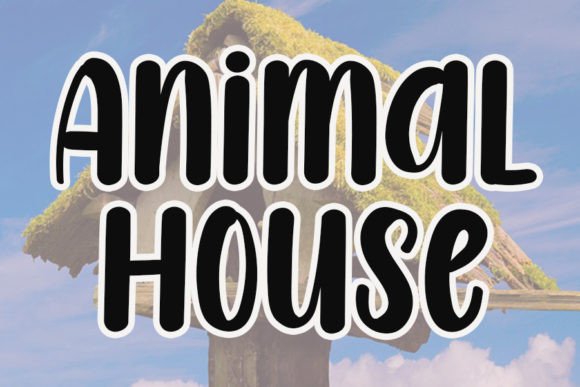
The Ultimate Guide to Animal House Font: Elevate Your Designs with this Modern Handwritten Style
Have you ever been in the middle of a design project, and suddenly, you’re stuck on finding the perfect font? I recall a particularly frustrating experience while working on a branding project for a trendy boutique hotel. My client wanted a font that exuded a sense of modern sophistication while still being approachable and friendly. After scouring through countless font libraries, I stumbled upon the Animal House font. It was love at first sight! ✨ In this article, we’ll dive into the world of Animal House font, exploring its features, uses, and some helpful tips for incorporating it into your designs.
An Honest Review of Animal House Font
What I Love About Animal House Font
• ✨ Balanced and varied: Animal House font strikes the perfect balance between being not too thin and not too thick. This makes it incredibly versatile for various design projects.
• ✅ Modern vibe with a classic touch: Inspired by classic calligraphy, this font brings a fresh and modern feel to your designs while maintaining an air of sophistication.
• 🌈 Spotless form: The clean lines and curves of Animal House font make it a joy to work with, ensuring your designs look polished and professional.
While Animal House font is an excellent choice for many projects, there are a few minor considerations to keep in mind:
• 🤔 Limited availability of weights: If you’re looking for a font with a wide range of weights, you might find Animal House font somewhat limited. However, its existing weights are highly versatile.
• ⚠️ Not ideal for very small text: Due to its design, Animal House font might not be the best choice for very small text sizes, as some details may get lost.
The Backstory of Animal House Font
Animal House font was designed with the intention of creating a modern, handwritten font that captures the essence of classic calligraphy. The designer aimed to produce a font that was not only beautiful but also highly versatile, suitable for a wide range of design projects. Through meticulous attention to detail and a passion for typography, Animal House font was brought to life.
Is Animal House font suitable for body text? While Animal House font is beautiful, it’s best used for headings and titles due to its design. For body text, a more traditional font may be more readable.
Does Animal House font support OpenType features? Yes, Animal House font supports OpenType features, allowing for a range of stylistic alternates and glyphs to enhance your designs.
Is Animal House font available in multiple weights? Animal House font comes in a few versatile weights, making it suitable for various design needs.